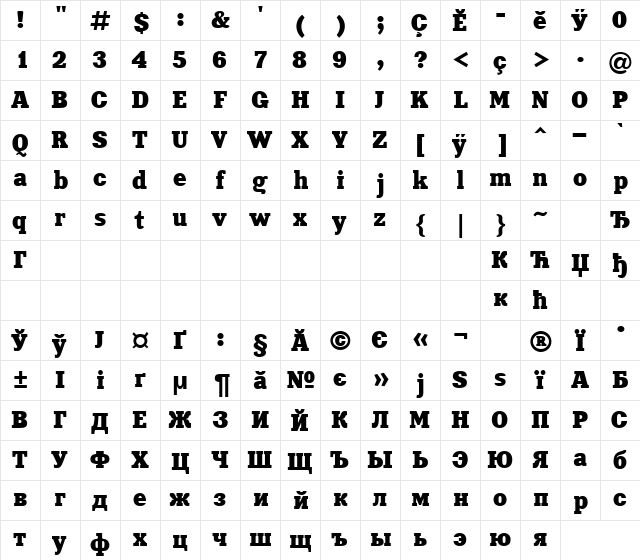
Xenia Bold Chu CNP Bold
Design Context for Xenia Bold Chu CNP Typeface
Xenia Bold Chu CNP is a composed and adaptable typeface that performs quietly and consistently across a wide range of design contexts. Its bold stroke weight gives it real presence on the page.
Pro Tip: Use Xenia Bold Chu CNP in both headline and body roles to test its range before committing to a single application.